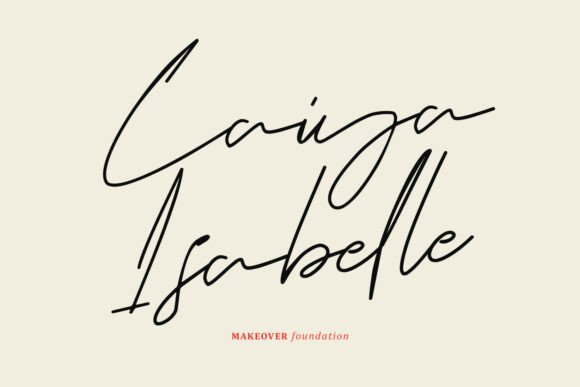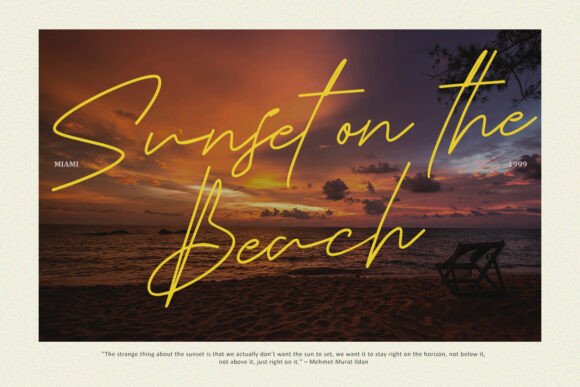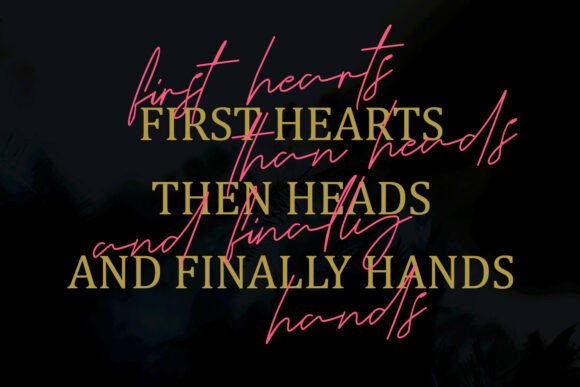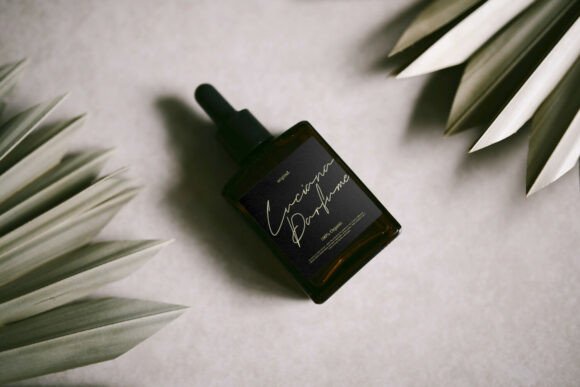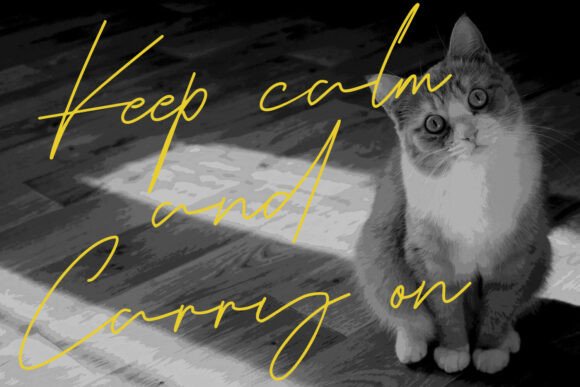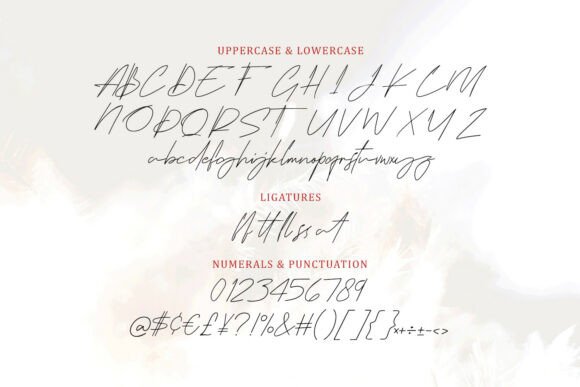
Introduction to Katios Catty Font
The moment you find the perfect font for your creative project can be a game-changer. Imagine the thrill of seeing your design come together with a beautiful, elegant font that captures the essence of your brand. That’s exactly what Katios Catty Font offers – a sleek and refined monoline signature font that exudes effortless charm.
Whether you’re a professional designer or a creative enthusiast, Katios Catty Font is a valuable addition to your design resource arsenal. Its high-quality lines and delicate curves make it perfect for personal branding, photography logos, social media, invitations, and stylish stationery. Plus, it’s available for a free download, making it an excellent choice for designers on a budget or those looking for a reliable, transparent background for their designs.
Key Features of Katios Catty Font
- Unique, cursive design with a transparent background for a modern look
- Includes a range of styles and weights, ideal for adding depth and variety to your creative project
Honest Review: Katios Catty Font
I recently stumbled upon Katios Catty Font while searching for a high-quality design resource for my creative project. The font is available for free download, which is always a great bonus. Upon closer inspection, I was impressed by the clear and transparent background, making it easy to work with.
Here are some things that work well with Katios Catty Font: ✨
- Unique and quirky design aesthetic
- High-quality vector graphics
- Easy to customize and manipulate
- Works well for digital and print applications
However, I did notice a few limitations: ⚠️
- Some characters may be missing or inconsistent
- Limited language support
- Not ideal for body text due to its playful nature
Overall, I’m impressed with Katios Catty Font as a design resource. While it may not be perfect, its unique design and high-quality graphics make it a great addition to any creative project. I’d definitely recommend it for titles, headings, and other display text applications.
Getting the Most Out of Katios Catty Font
To get the most out of Katios Catty Font, consider using it on a transparent background to create a unique and eye-catching design. This font is a great addition to any creative project, and with its high-quality design, it’s sure to stand out.
Katios Catty Font is a versatile design resource that can be used in a variety of projects, including logos, branding, and marketing materials. Its unique and playful style makes it a great choice for creative projects, and its high-quality design ensures that it will look great on any background.